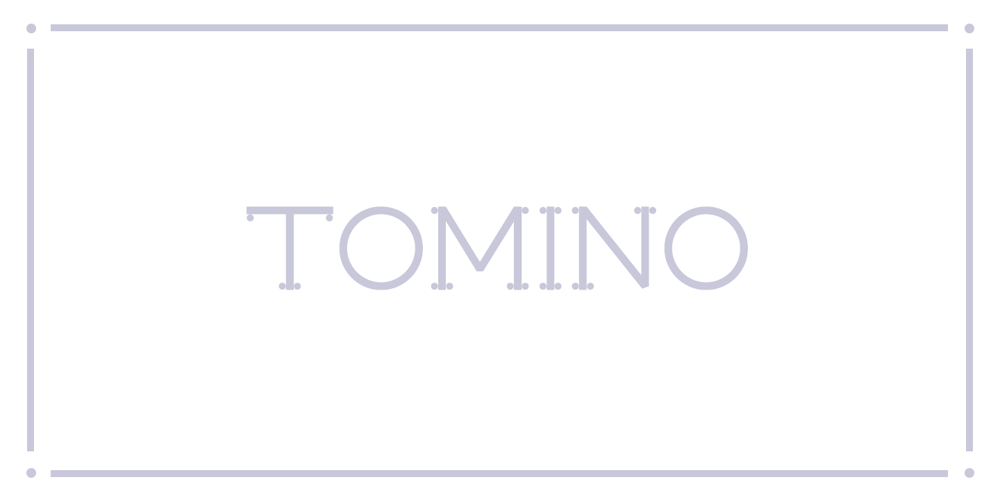
Tomino Font Family was designed by Måns Grebäck and published by Mans Greback. Tomino contains 1 styles and family package options. Tomino is a dot serif, or a sans-serif decorated with dots. It’s wide and clear, and works great in small and large sizes.